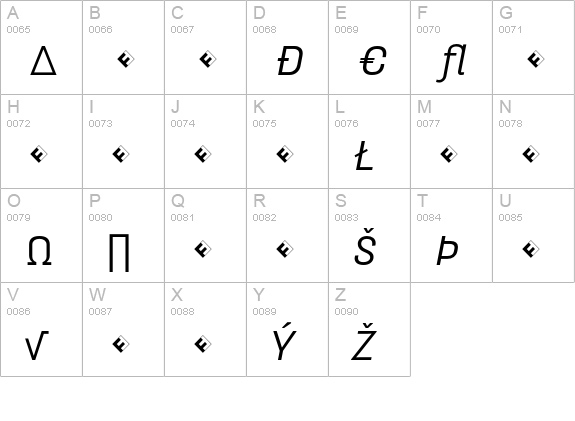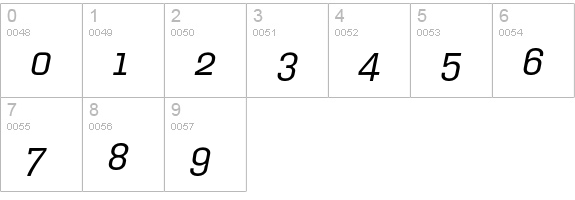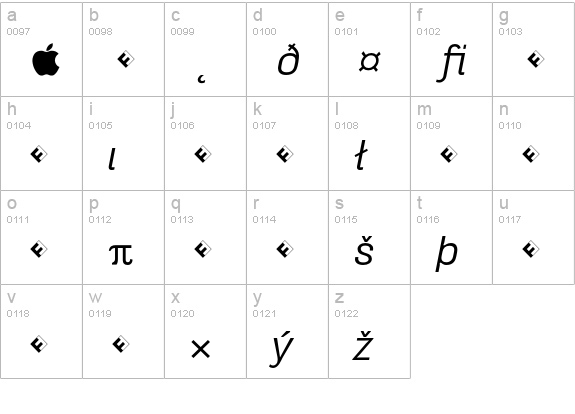
HydraText-RegularItalicExp font is a versatile and elegant typeface that adds a touch of sophistication to any design. Its sleek and slanted italic style exudes a sense of modernity and creativity, making it perfect for projects that require a unique and stylish look. This font offers a harmonious balance between readability and expressiveness, making it suitable for a wide range of applications, from branding to editorial design. The italicized glyphs flow smoothly, creating a dynamic and engaging visual impact that captivates the viewer's attention. Best of all, HydraText-RegularItalicExp font is available for free download at FontsMarket.com, making it accessible to designers and creatives looking to enhance their projects with a touch of elegance and flair. Don't miss out on this opportunity to elevate your designs with this beautiful and versatile typeface.